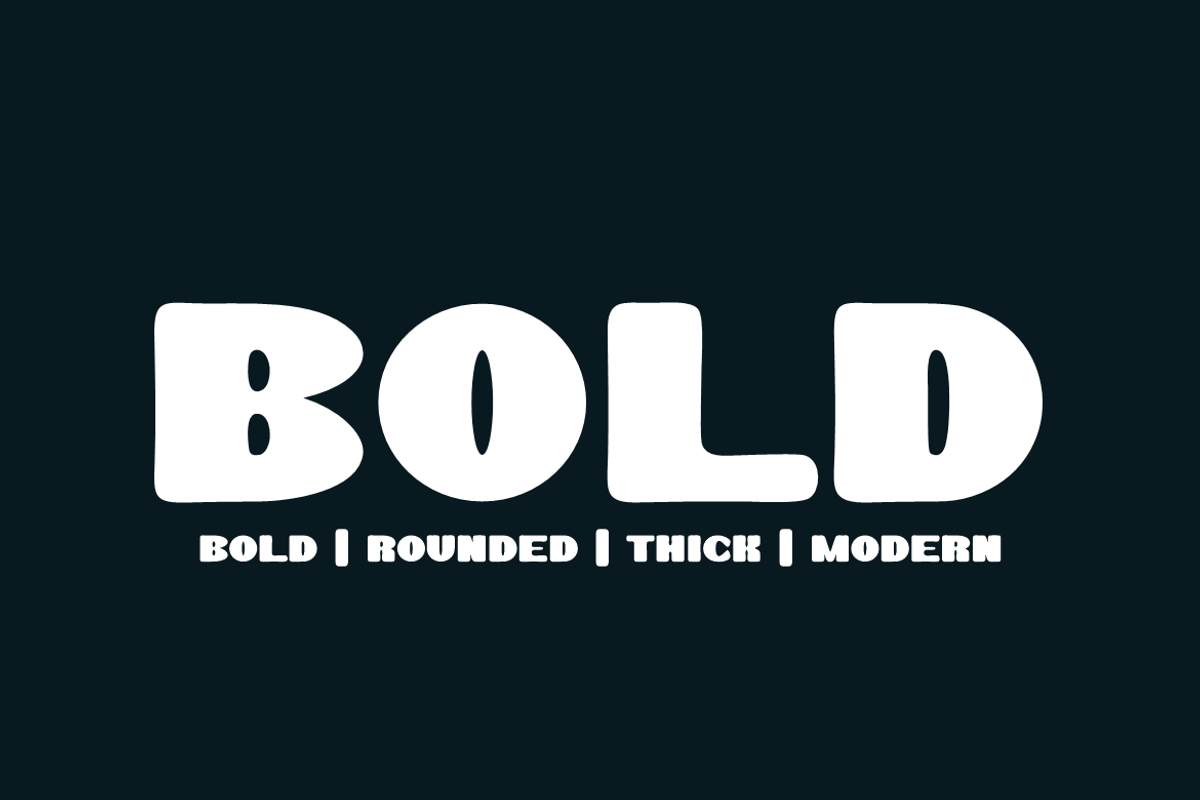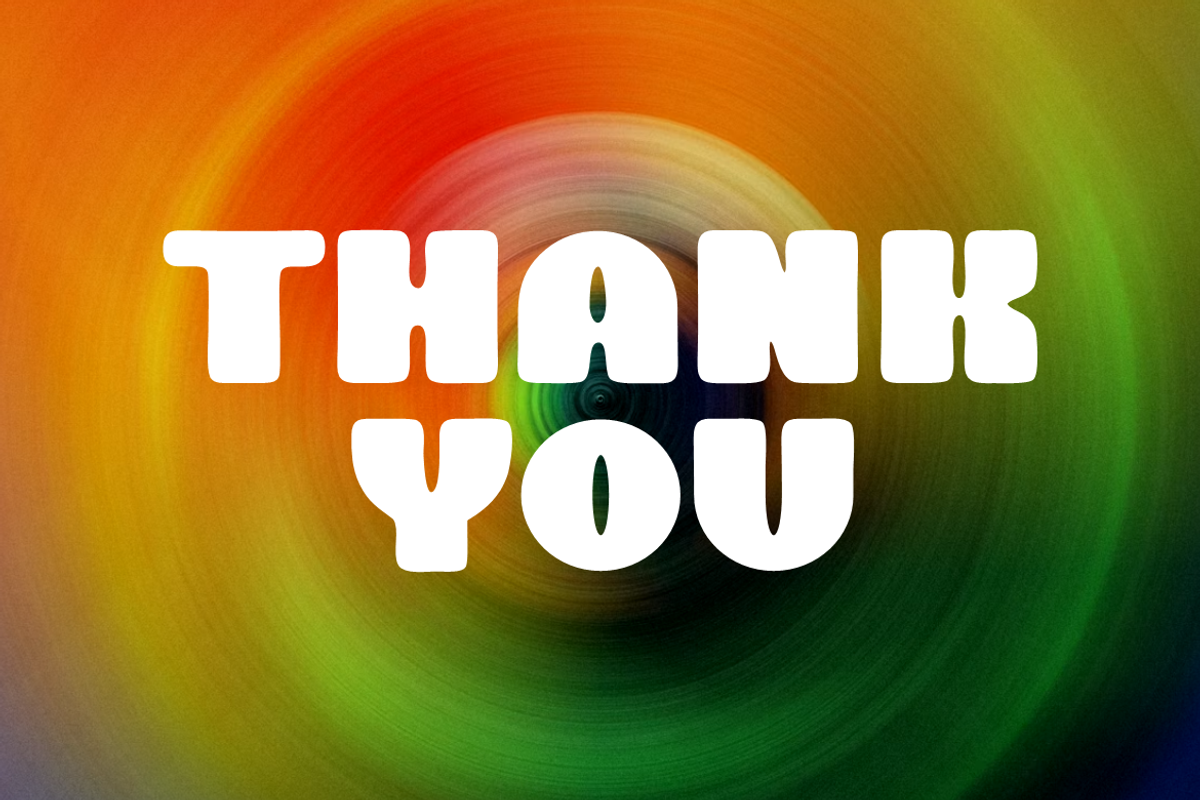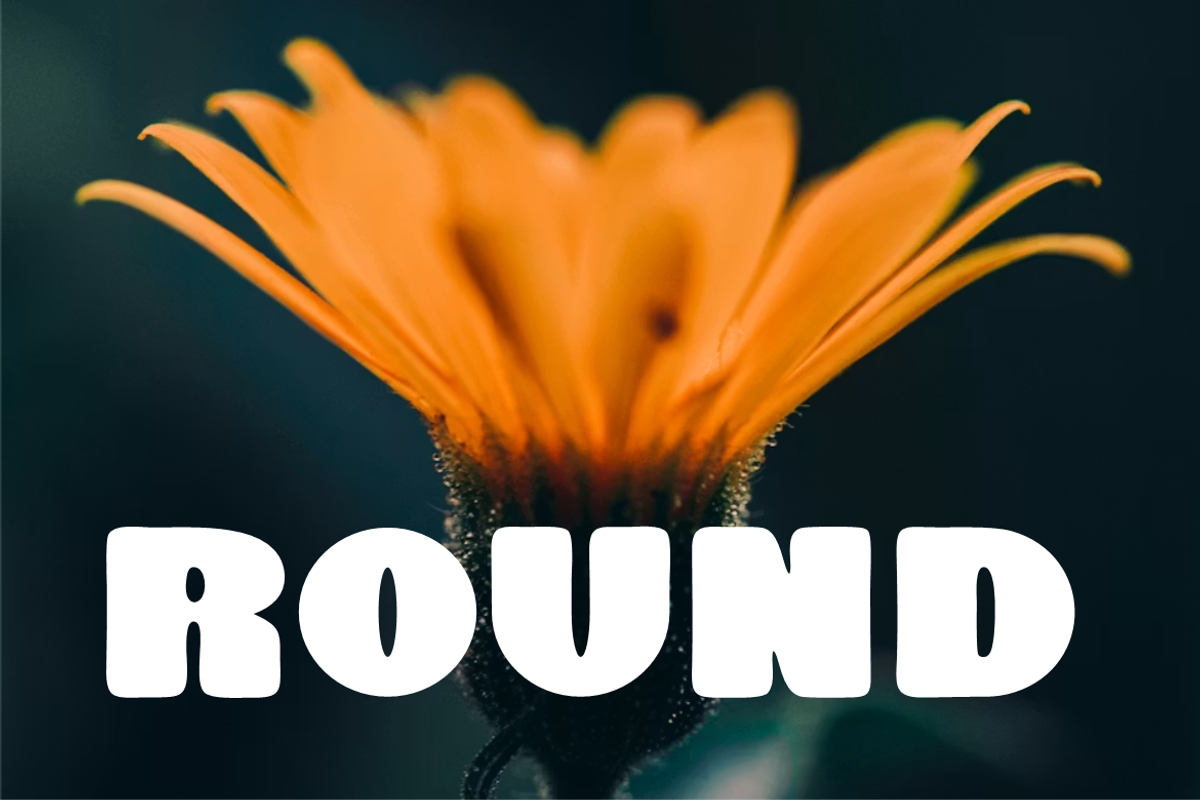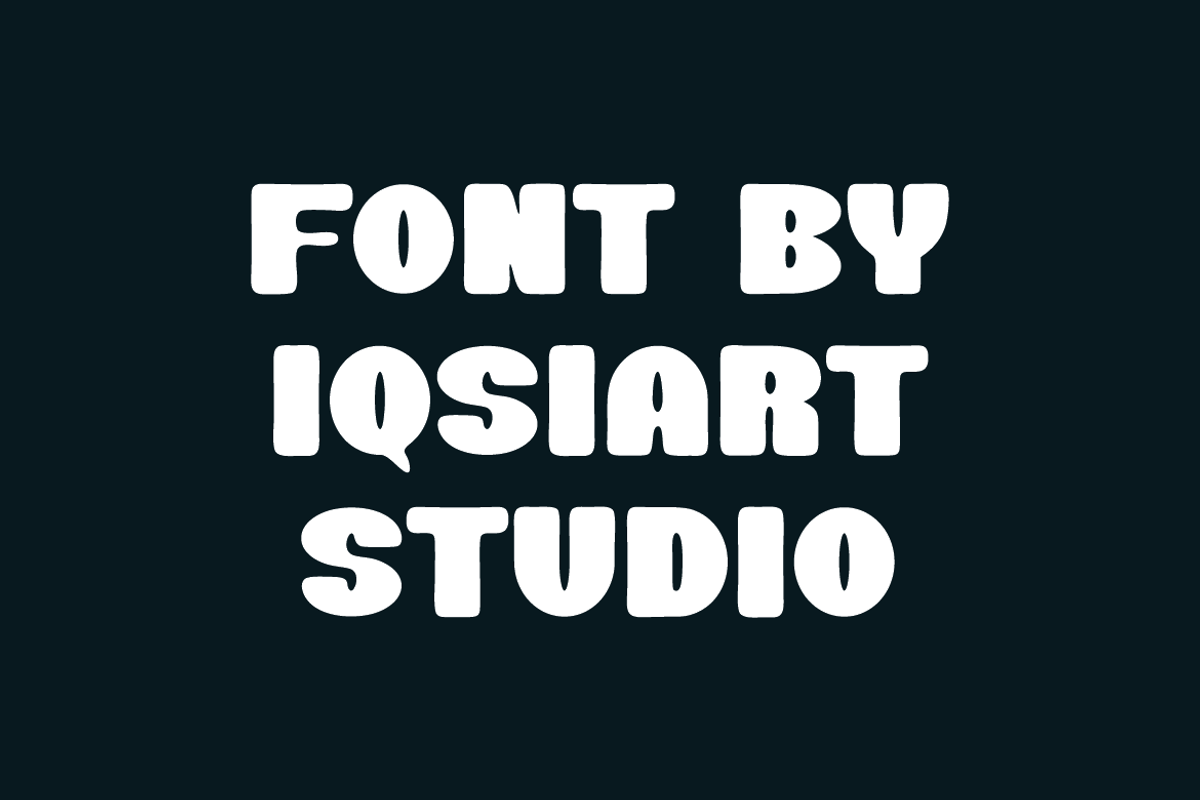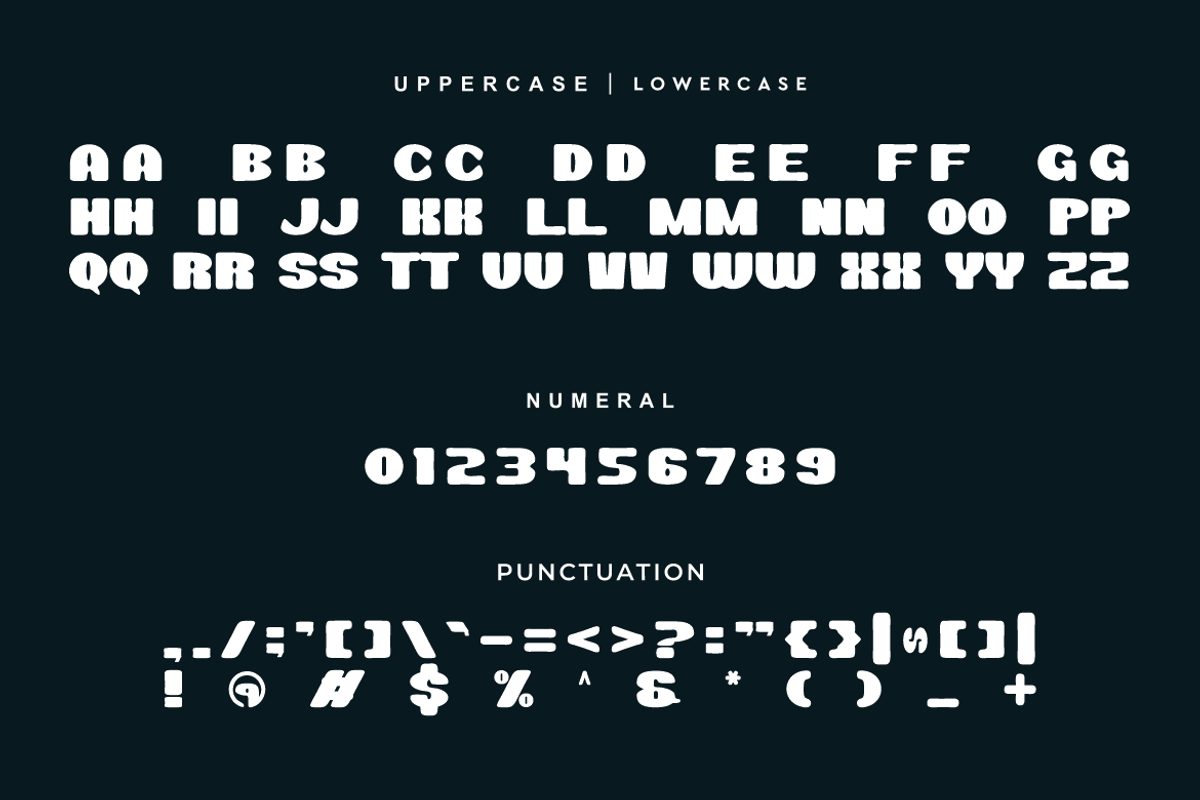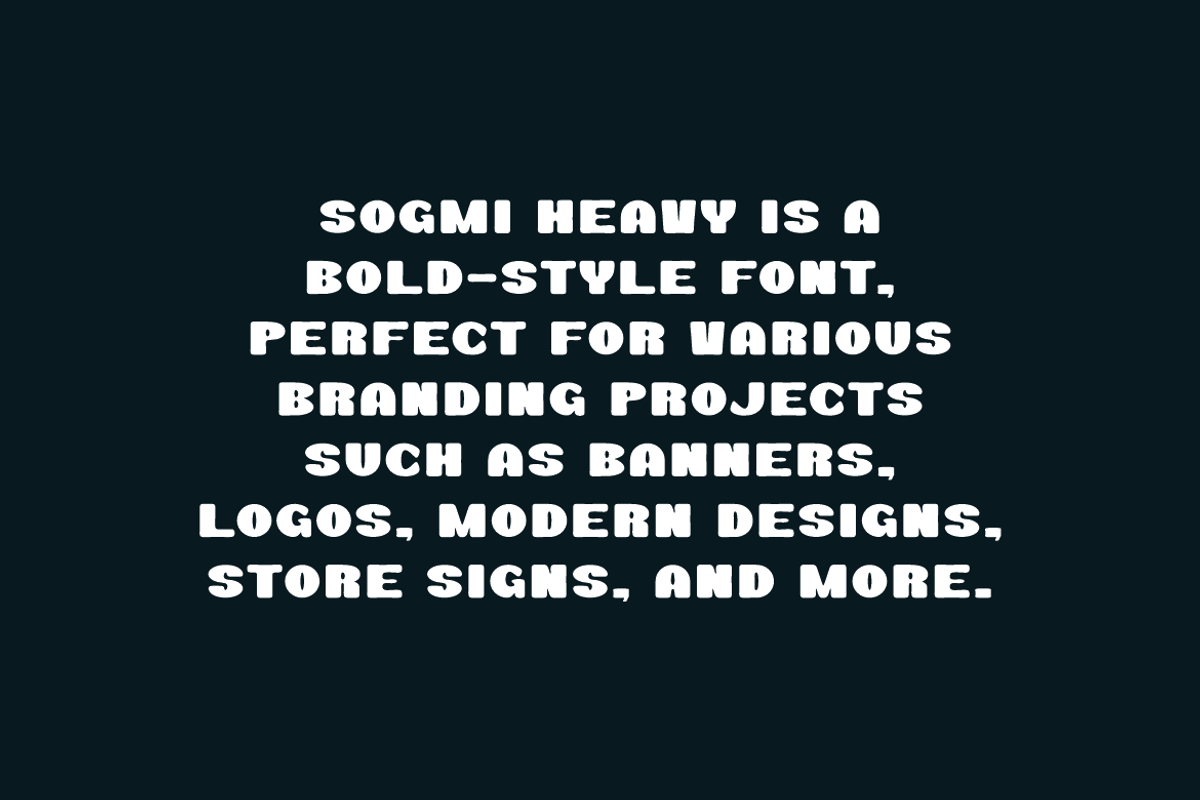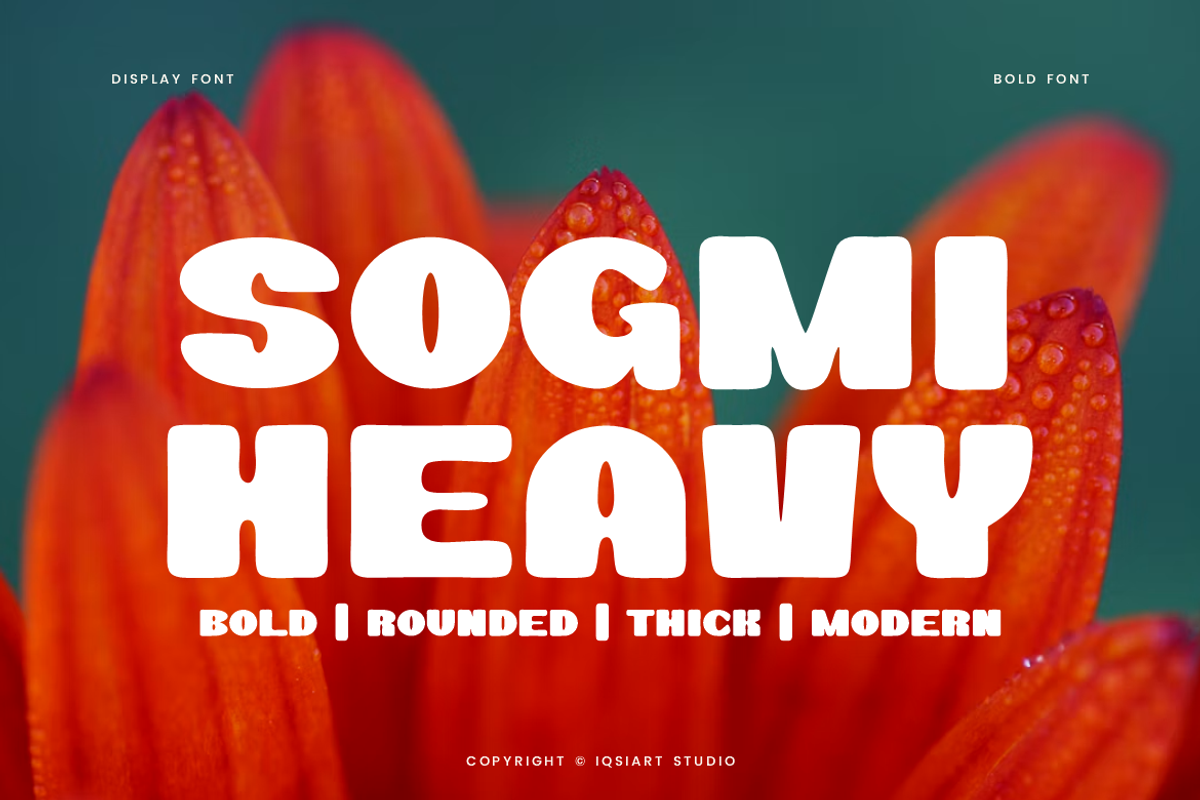
Sogmi Heavy - Bold Round Font
Sogmi Heavy Font is a bold and authentic display typeface
that suits a variety of design needs. We offer a wide range of themes